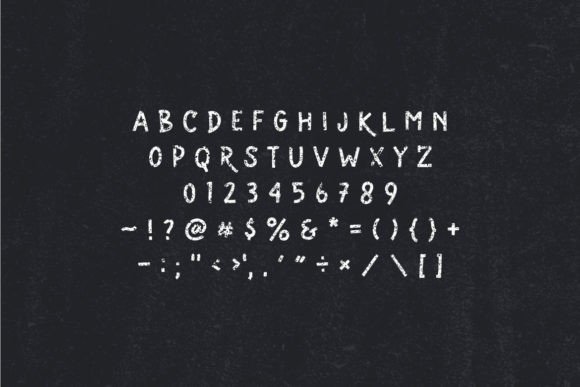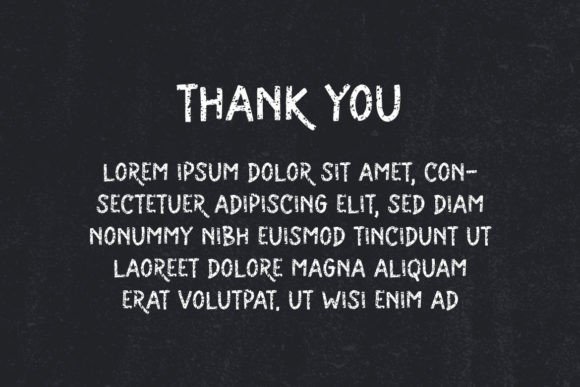
Introduction to Rog92 Font Font
Fonts play a crucial role in design, and the Rog92 Font font is a typeface that brings both character and versatility to any project. Whether you’re working on a branding project, a website, or a print design, the Rog92 Font font offers a unique style that can elevate your work.
If you are looking for a rough display font with a grunge effect, meet Rog92.
Rog92 is perfect for any work such as your comic, poster, card, book title, headline, banner, flyer, stationery, and many more It also can be used in any scale work.
Key Features of Rog92 Font Font
Why Choose Rog92 Font Font?
The Rog92 Font font is more than just a typeface – it’s a design tool that helps you communicate your message with style and clarity. Its unique character set and versatile design make it suitable for a wide range of applications, from elegant invitations to bold headlines.
With its carefully crafted letterforms and balanced proportions, the Rog92 Font font ensures readability and visual appeal across all mediums.
What makes Rog92 Font font special?
The Rog92 Font font stands out with its unique design, exceptional readability, and versatility across various design applications.